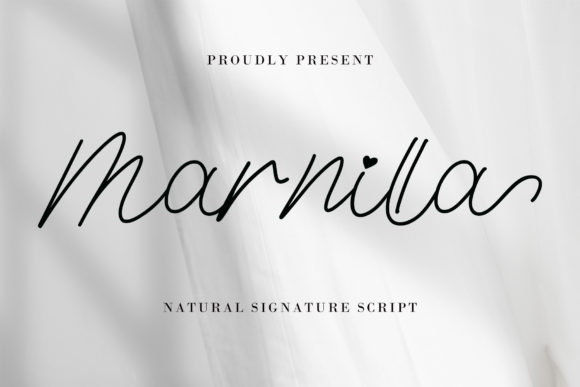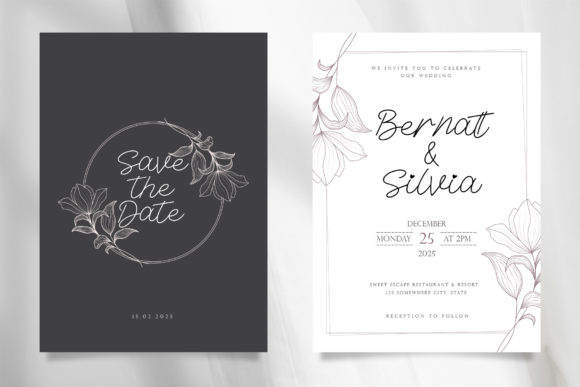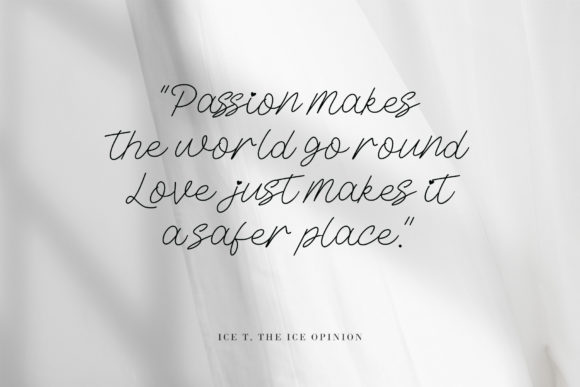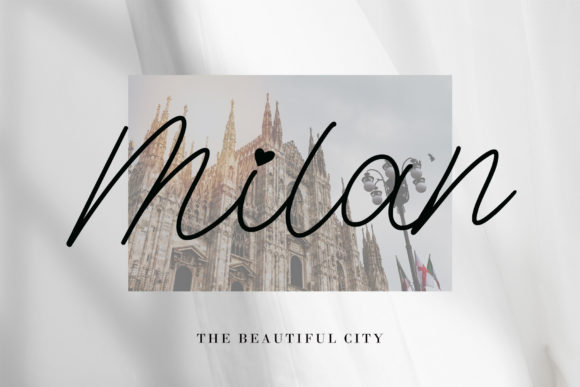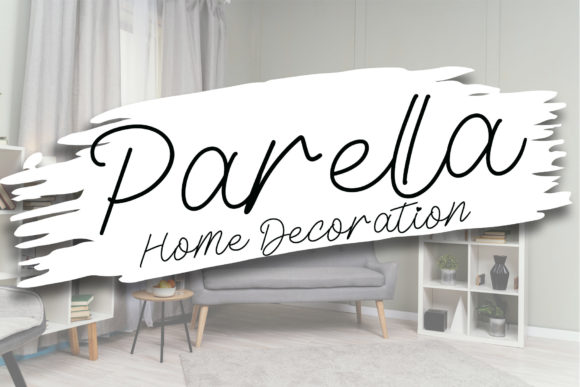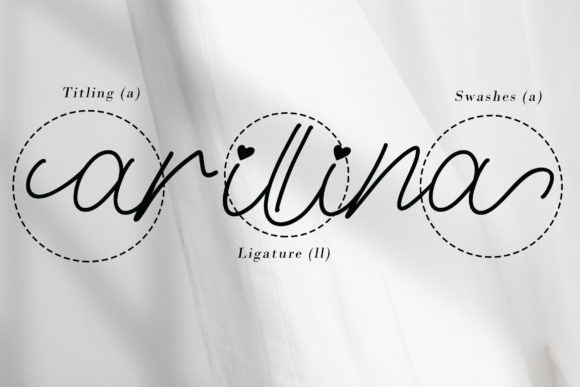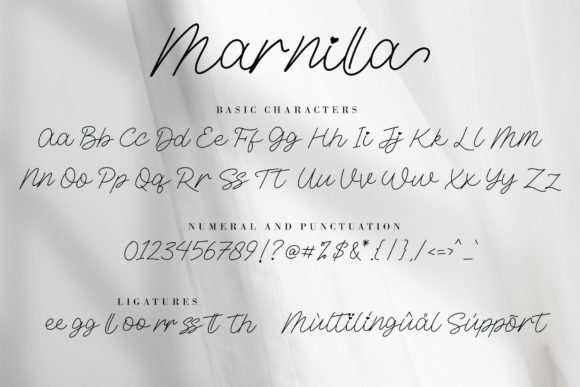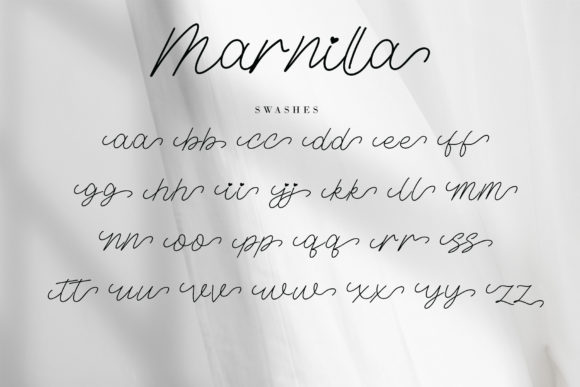
Marnilla Signature Font
About Marnilla Signature Font
Marnilla Signature is a beautiful, elegant, yet casually simple script font that effortlessly combines a natural look and feel. This font is designed to exude sophistication while maintaining a sense of ease, making it a versatile choice for various design applications. With its beautiful swashes, ligatures, and overall aesthetic, Marnilla Signature is perfect for logos, wedding invitations, posters, social media posts, signatures, quotes, and a wide range of creative projects.
The beauty of Marnilla Signature lies in its balance between elegance and simplicity. The script style adds a touch of refinement, while the casual simplicity ensures approachability and versatility in its usage. Whether applied to formal wedding invitations or playful social media posts, Marnilla Signature adapts seamlessly to different design contexts.
The inclusion of beautiful swashes and ligatures enhances the font’s visual appeal, providing additional creative possibilities for designers. This feature allows you to add personalized and unique touches to your projects, making them stand out with a touch of individuality.
In summary, Marnilla Signature is more than just a font; it’s a beautiful and elegant script font with a casual and simple charm. Its versatility, combined with the addition of swashes and ligatures, makes it a valuable asset for a variety of design projects. Let Marnilla Signature be the font that adds a touch of sophistication to your logos, wedding invitations, posters, and more, while maintaining a natural and approachable feel.